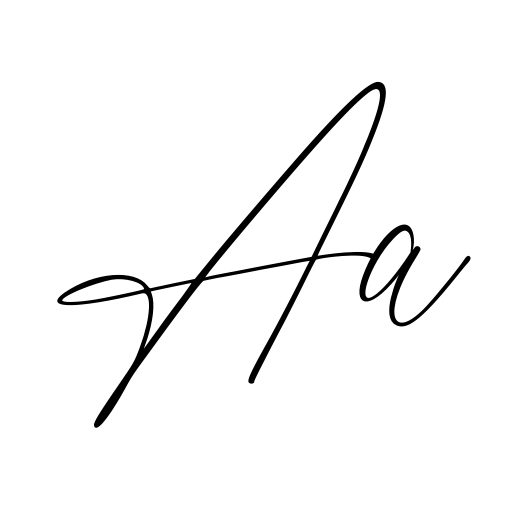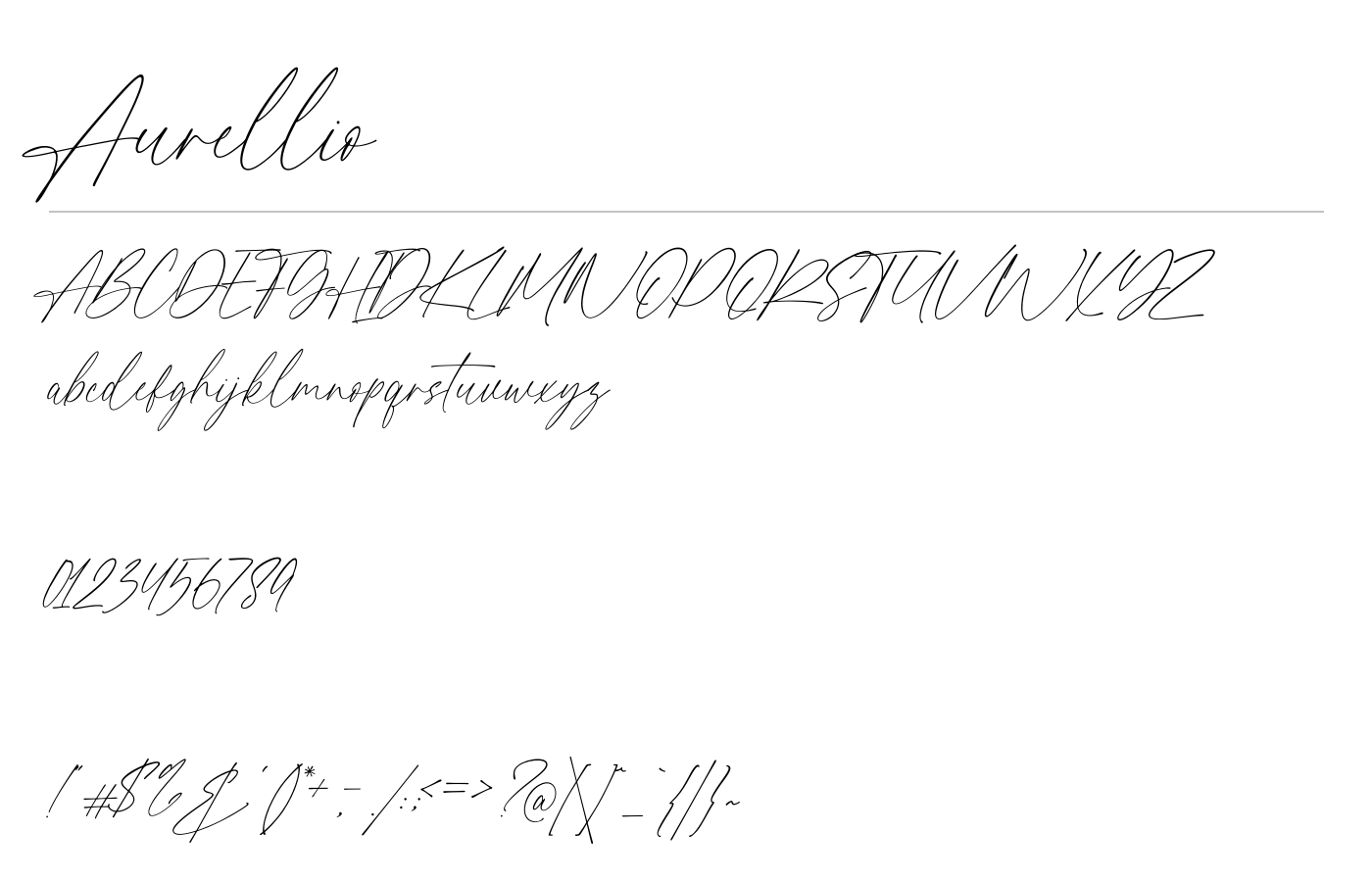
Aurellio is a delicate, elegant script font with a light, airy feel and flowing, handwritten letterforms. Its thin strokes and graceful curves give it a refined, modern charm perfect for adding a touch of sophistication to invitations, branding, and stylish editorial projects. This font works beautifully for designs aiming to communicate elegance and personal warmth without feeling overly formal.
Aurellio Font
About Aurellio Font
| Font family | Aurellio Font |
| Designer | Revo Farisky |